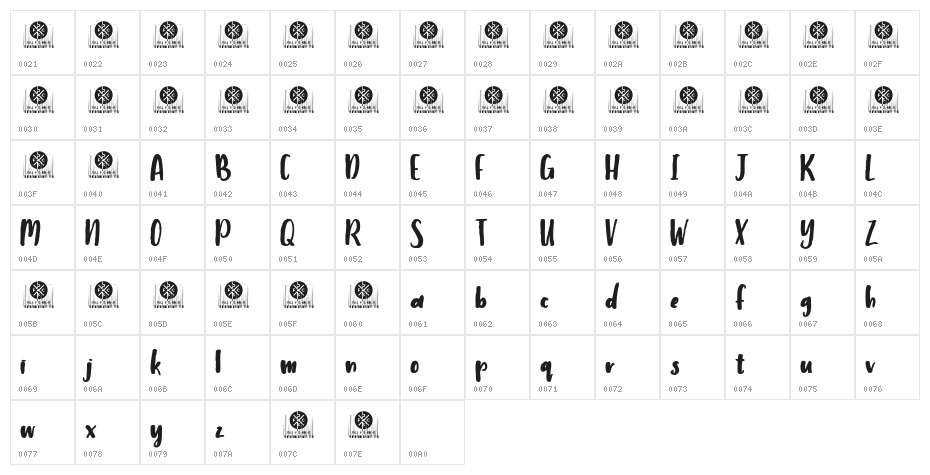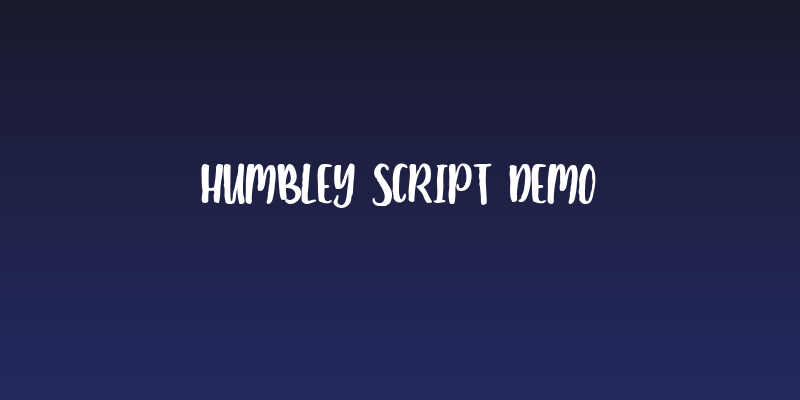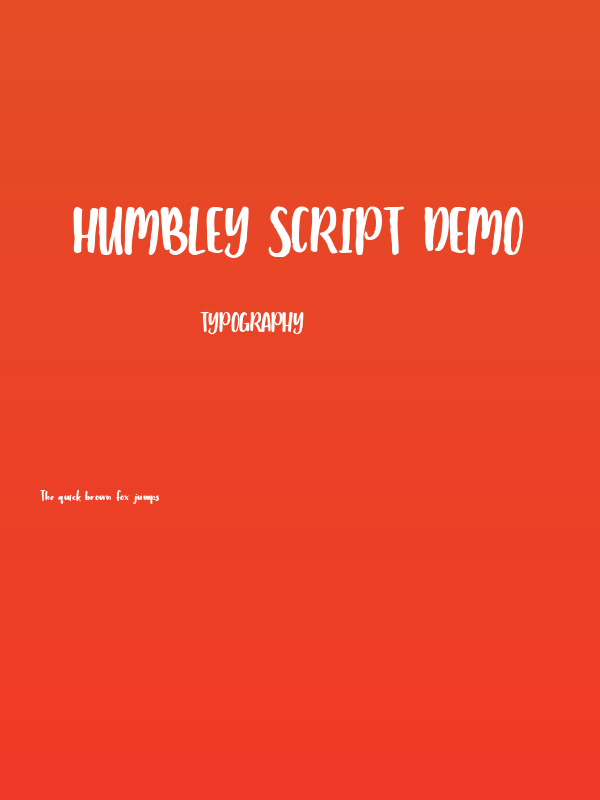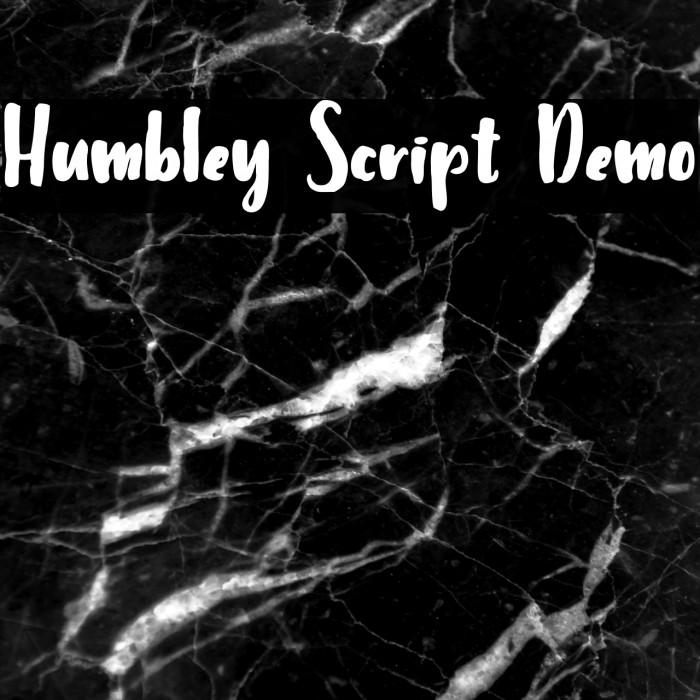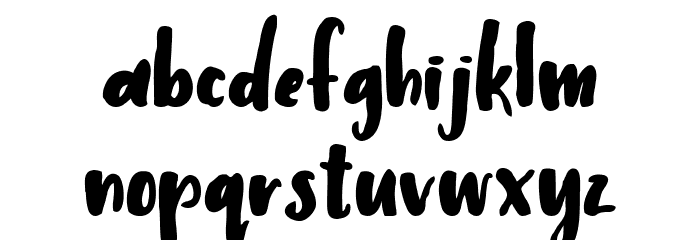
Humbley Script Demo Font
Humbley Script Demo Description
This font features a bold and expressive script style with a hand-drawn appearance. The uppercase letters are tall and slightly condensed, while the lowercase letters maintain a playful and casual flow. The strokes are thick, providing a strong presence and high visibility. The overall design is dynamic, with a slight slant that adds to its energetic feel. The characters are well-spaced, ensuring readability, and the font includes a full set of uppercase and lowercase letters, along with numerals and a selection of special characters.